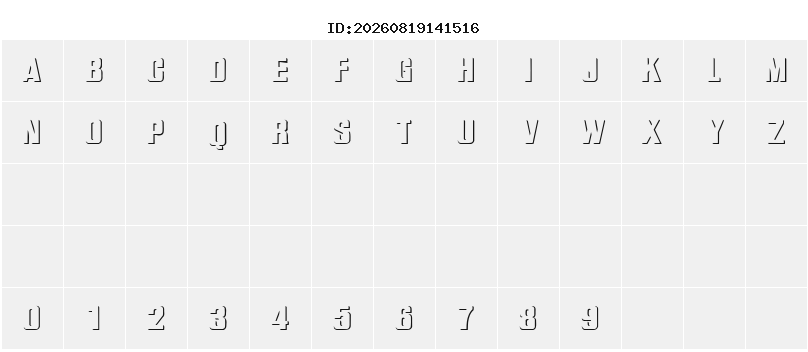
• Font Name: Simple Relief Caps
• Full Font Name: Simple Relief Caps Regular
Simple Relief Caps.ttf is a modern, elegant sans-serif font designed for ultimate readability and visual harmony. Perfect for branding, headlines, web design, and print materials.